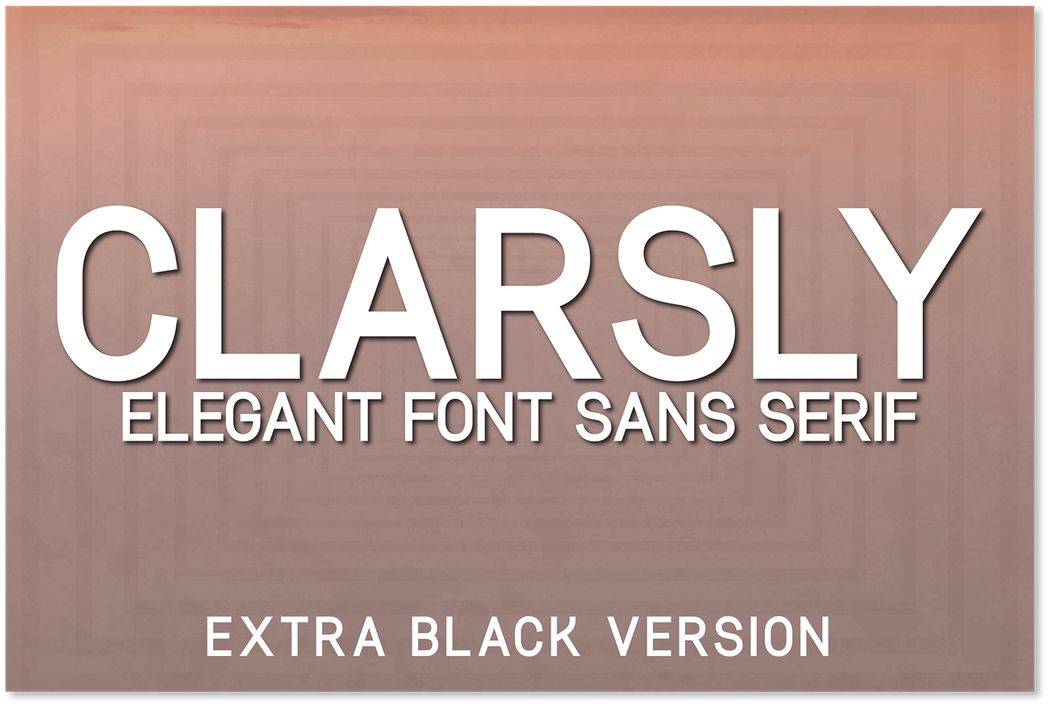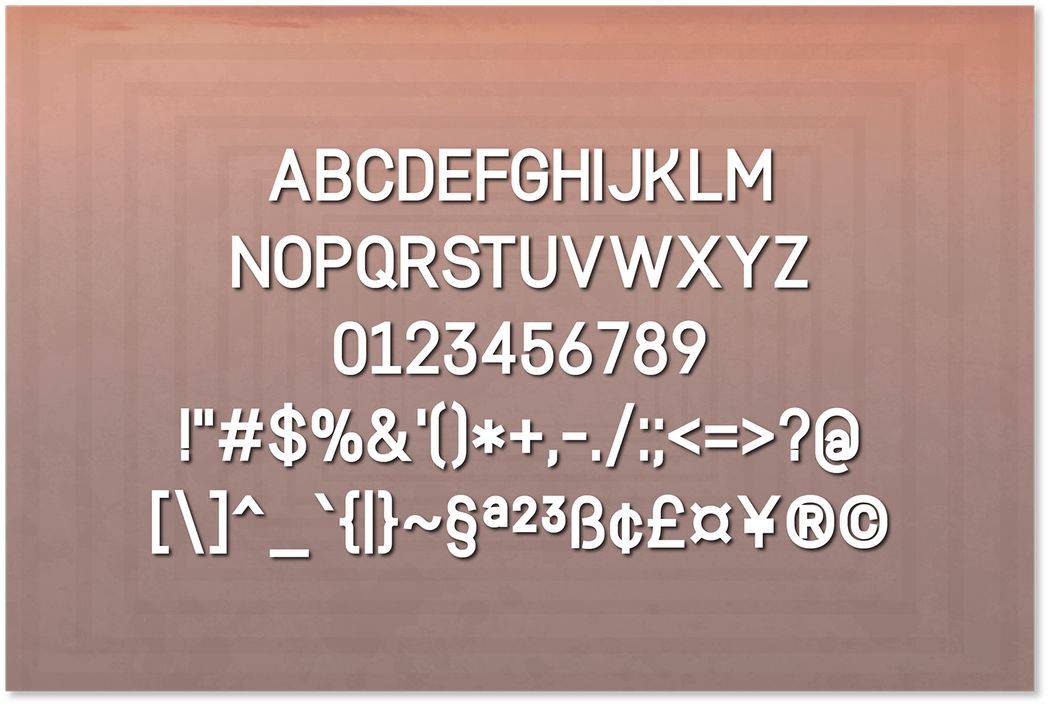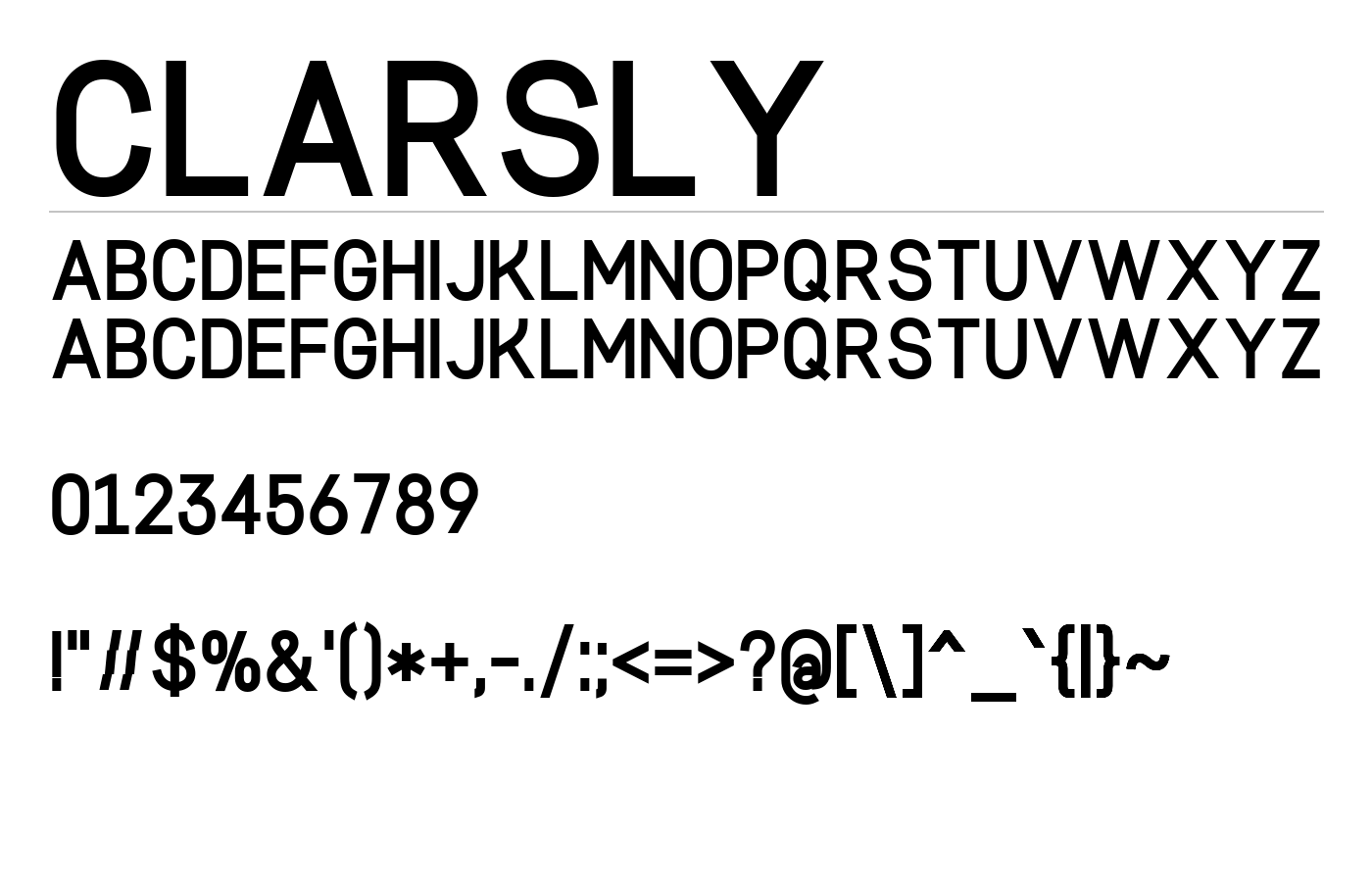
Clarsly is a modern sans serif font characterized by its clean, narrow letterforms and medium weight, offering excellent readability with a crisp and slightly condensed look. Its geometric strokes and straightforward design convey a professional and contemporary feel, making it ideal for branding, headlines, and editorial use where clarity and impact are key. This font works well in digital and print contexts that require a sleek, no-nonsense style with a touch of modern sophistication.
Clarsly Font
About Clarsly Font